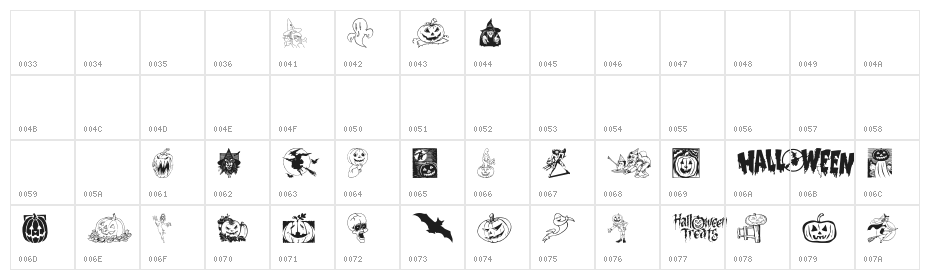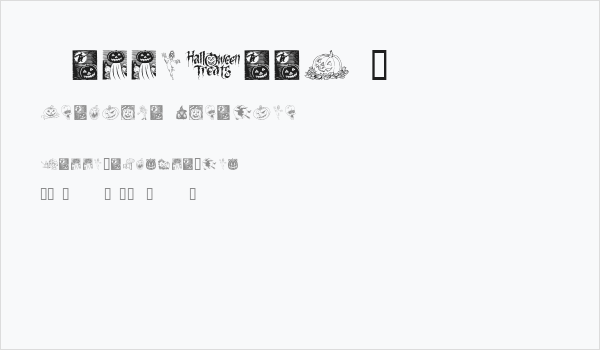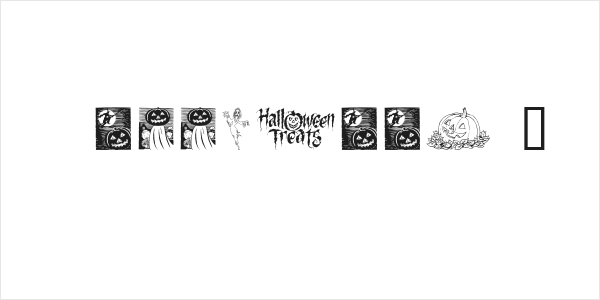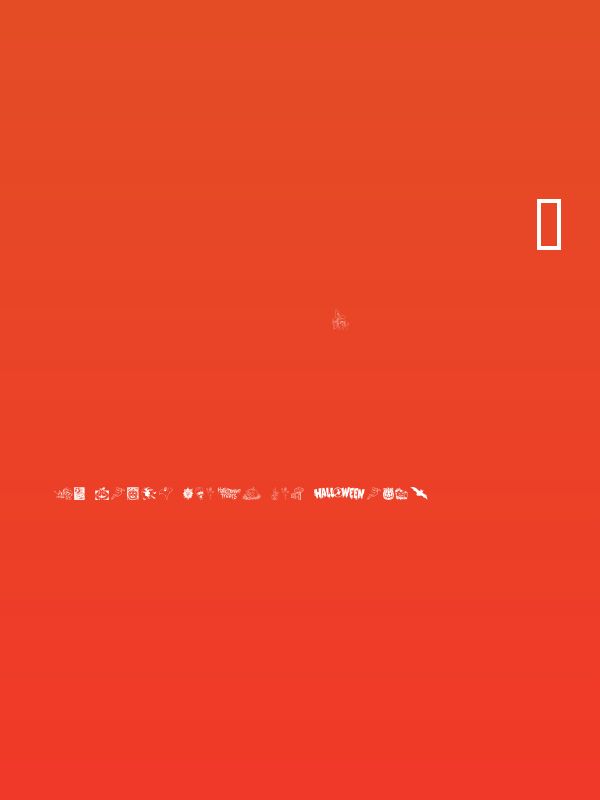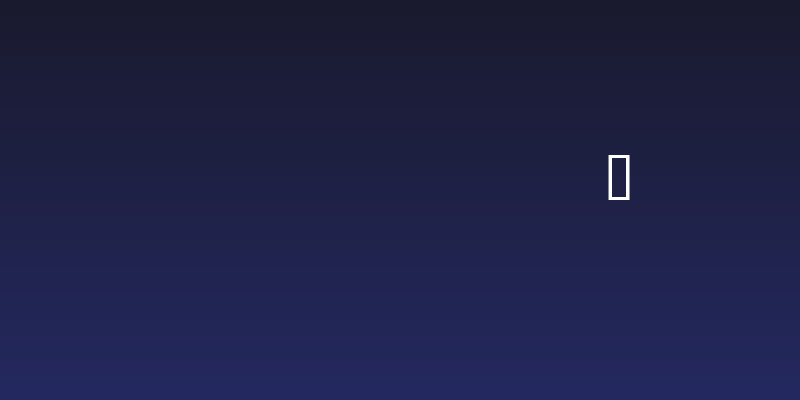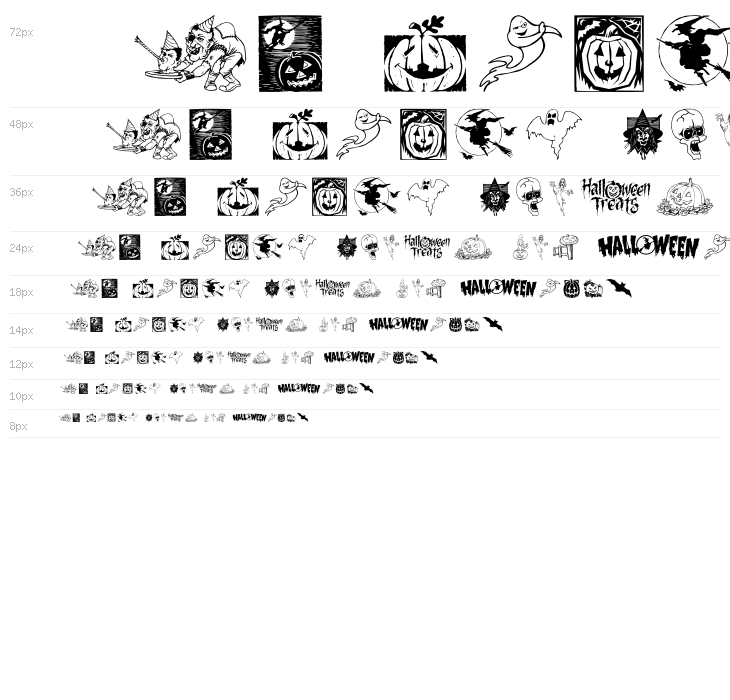
Helloween 2 Font
Helloween 2 Description
A decorative dingbat font featuring various Halloween-themed illustrations such as pumpkins, witches, ghosts, bats, and spooky text. The glyphs are detailed, playful, and cartoonish, with a hand-drawn, festive style suitable for seasonal designs.
| Overall Style | Decorative, Playful, Thematic |
| Use Case | Decorative elements, Themed graphics, Event materials |
| Proposed Projects | Party invitations, event flyers, seasonal decorations, children's crafts, Halloween posters. |